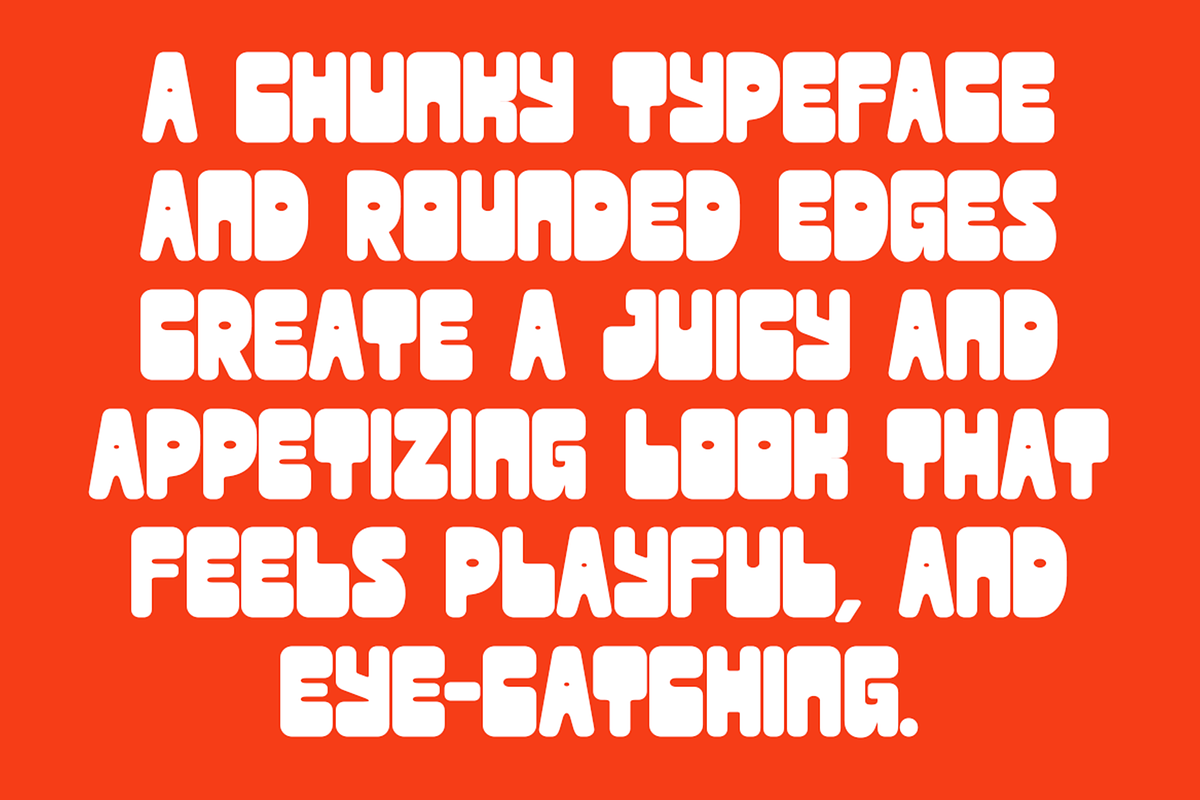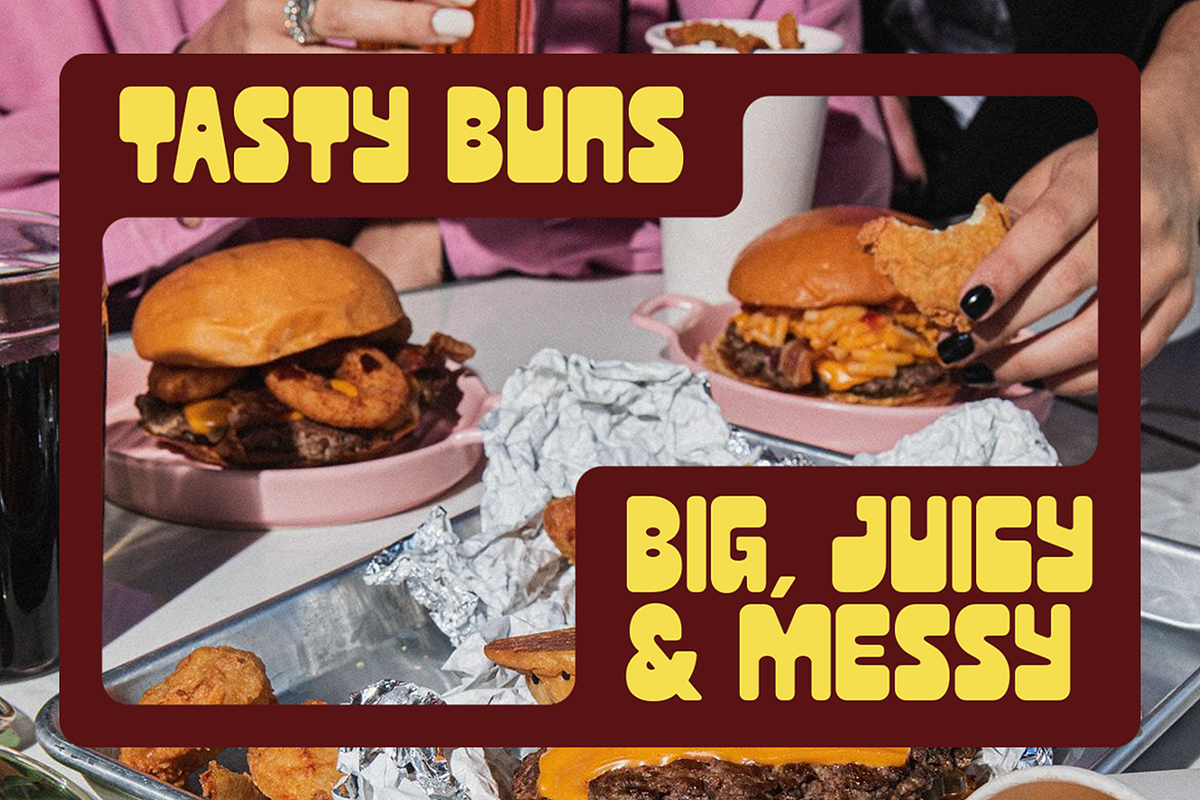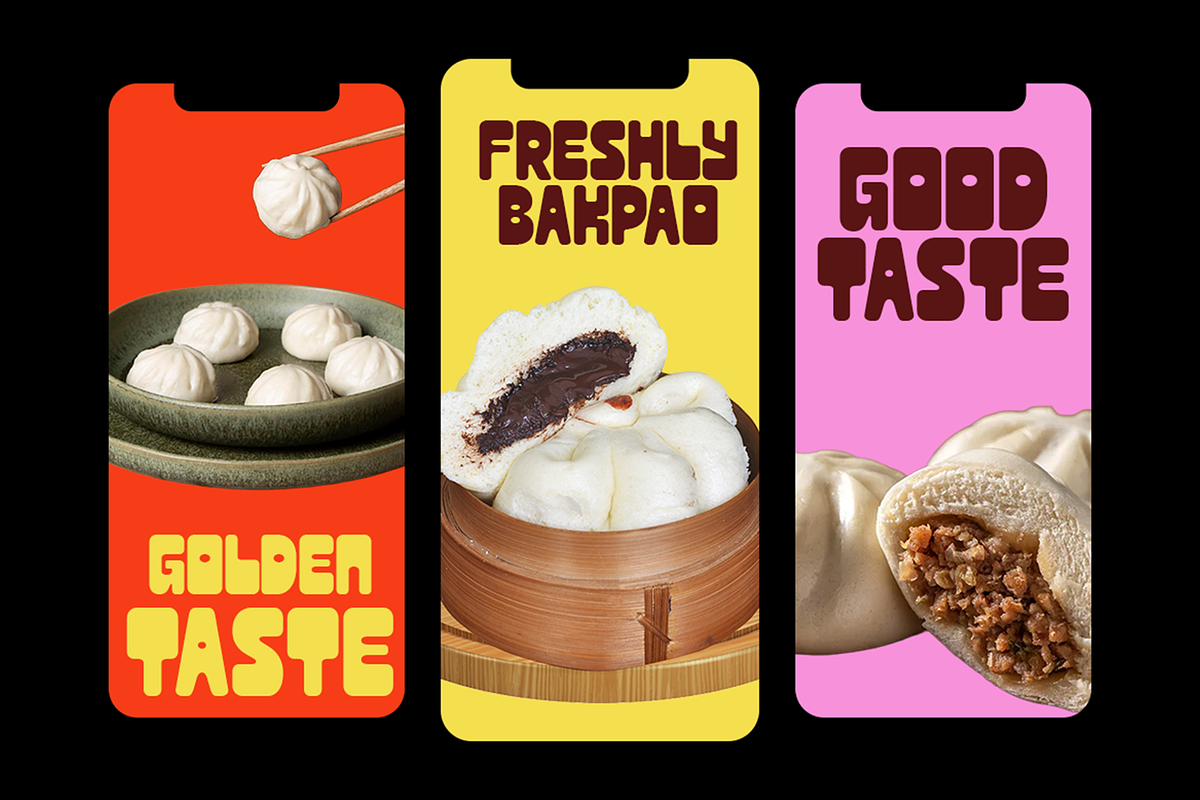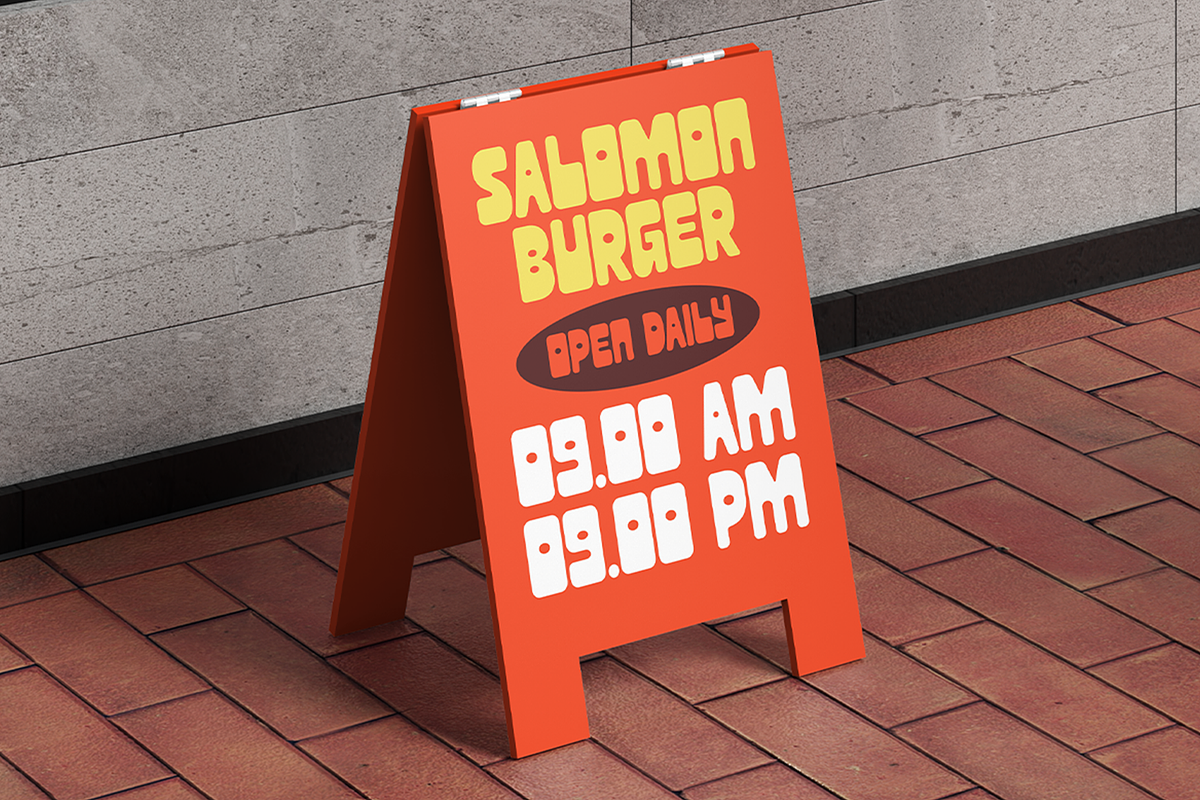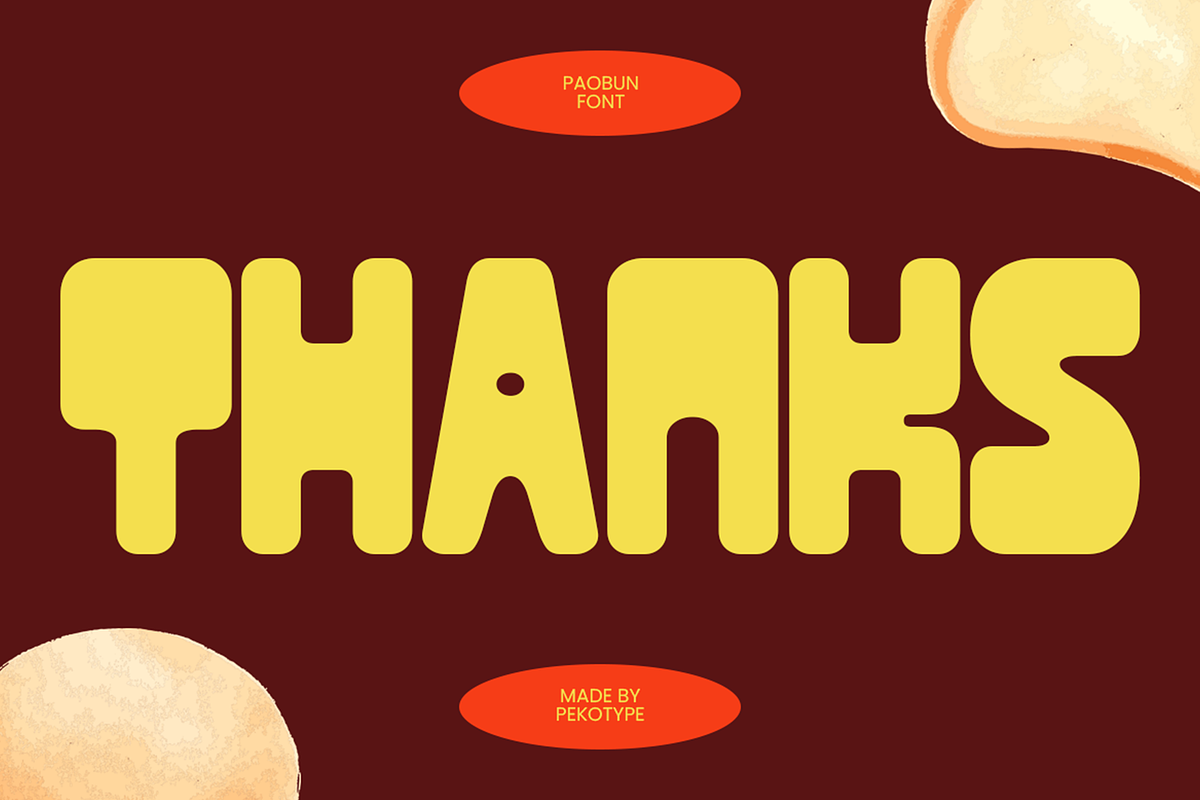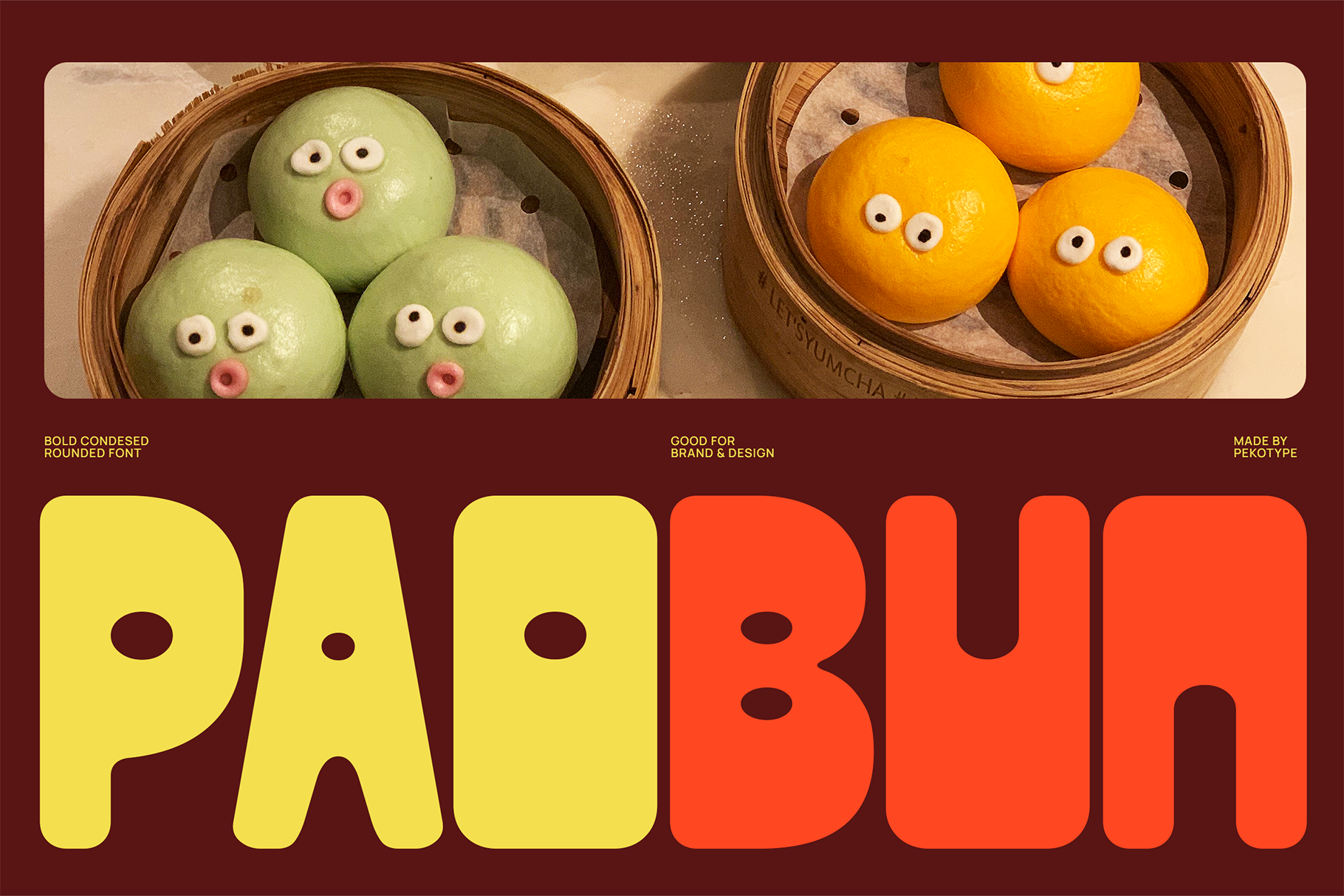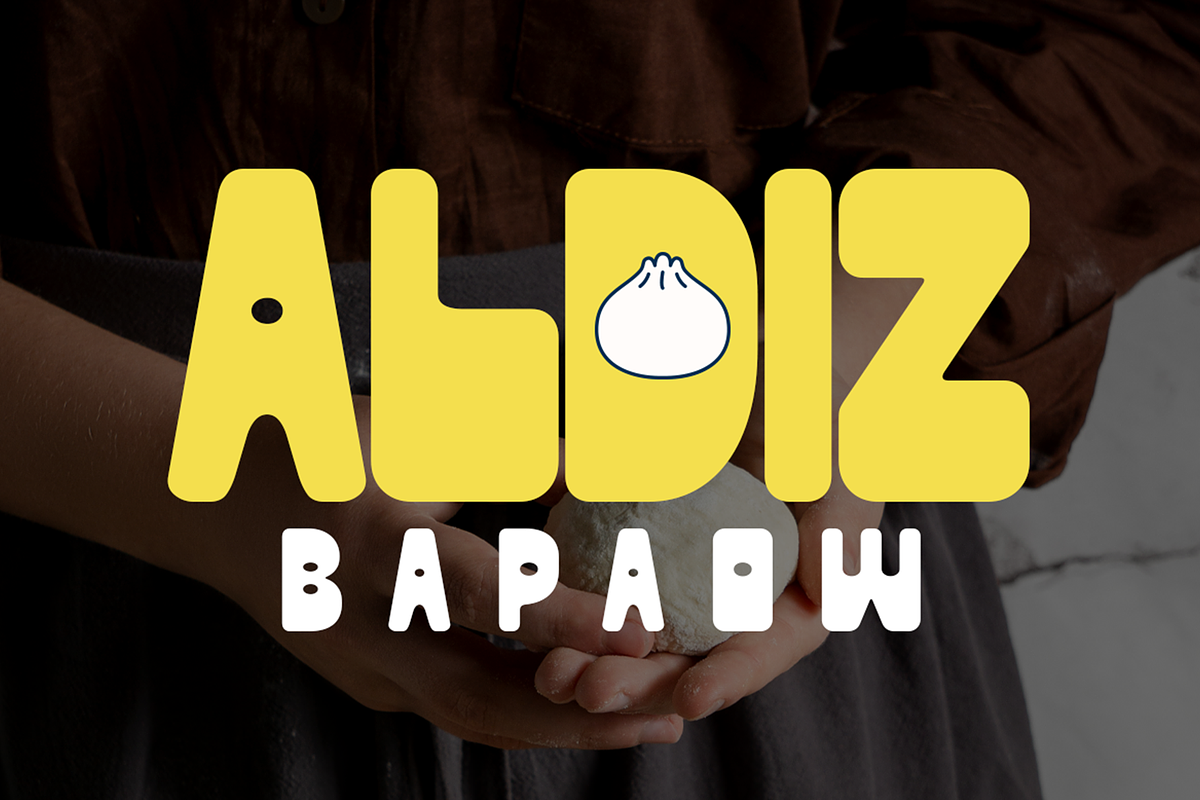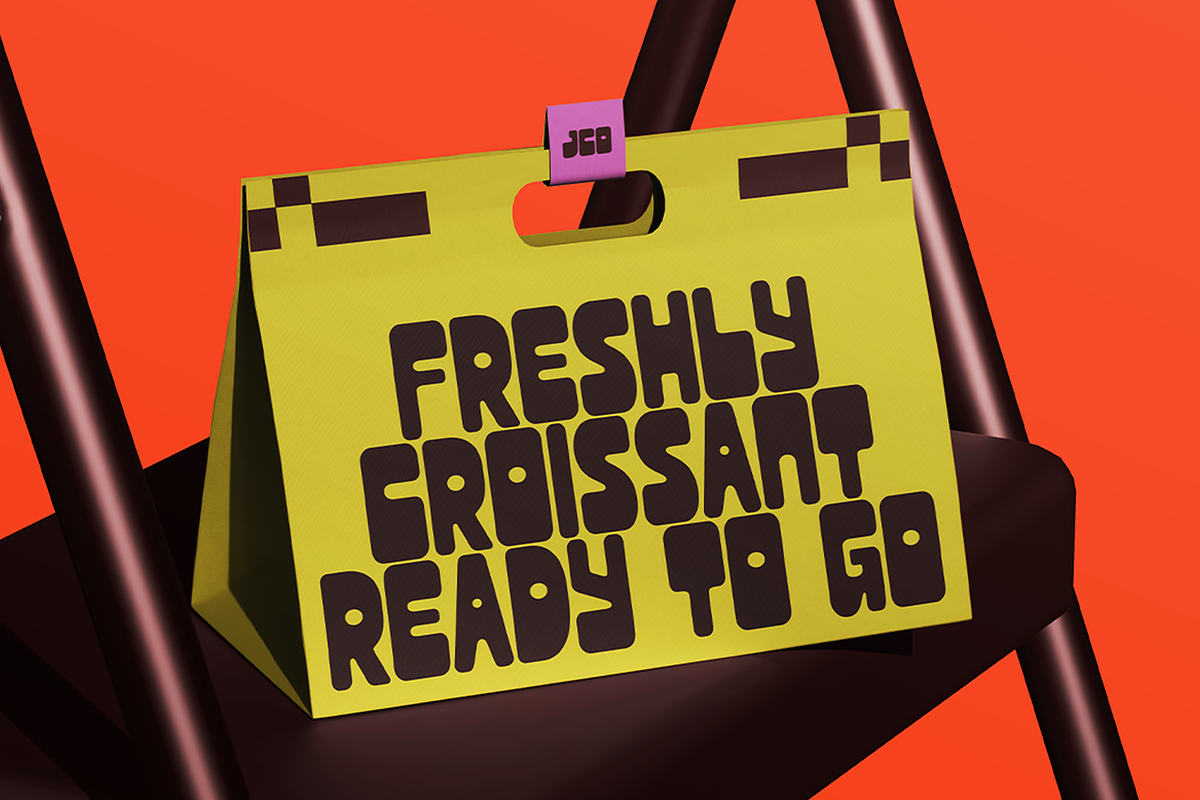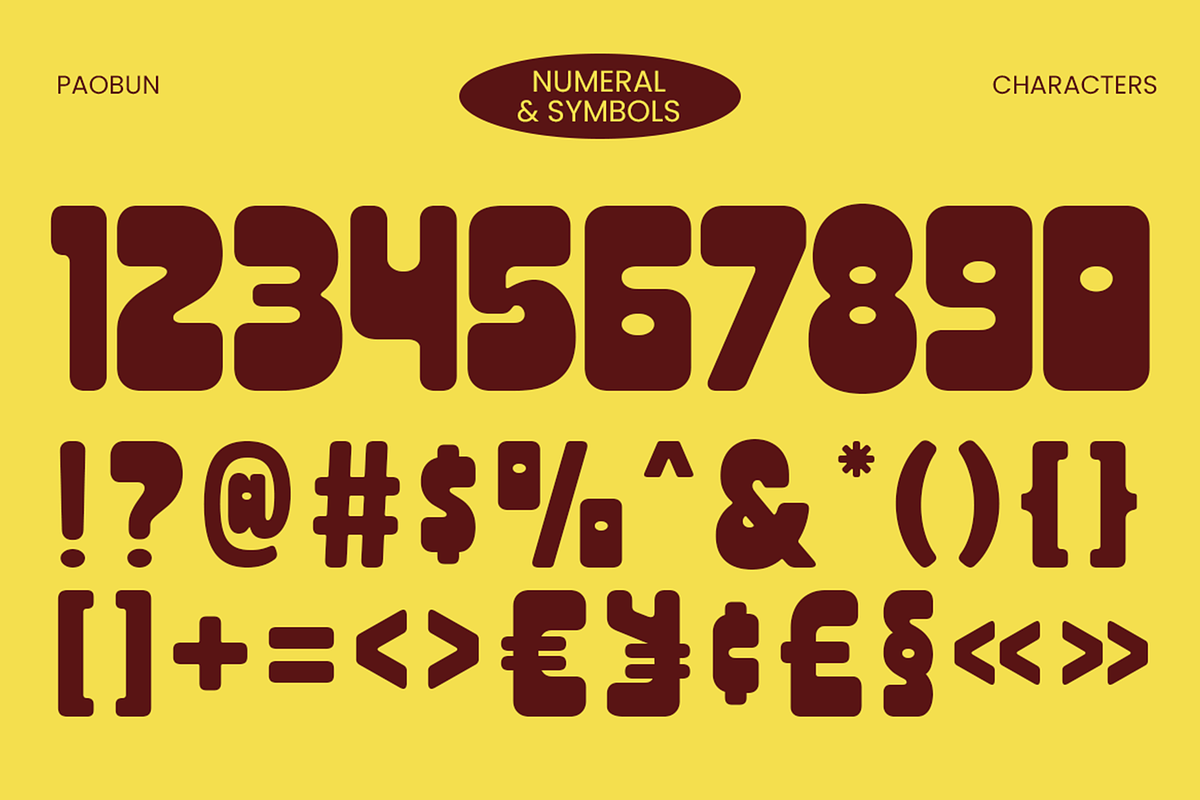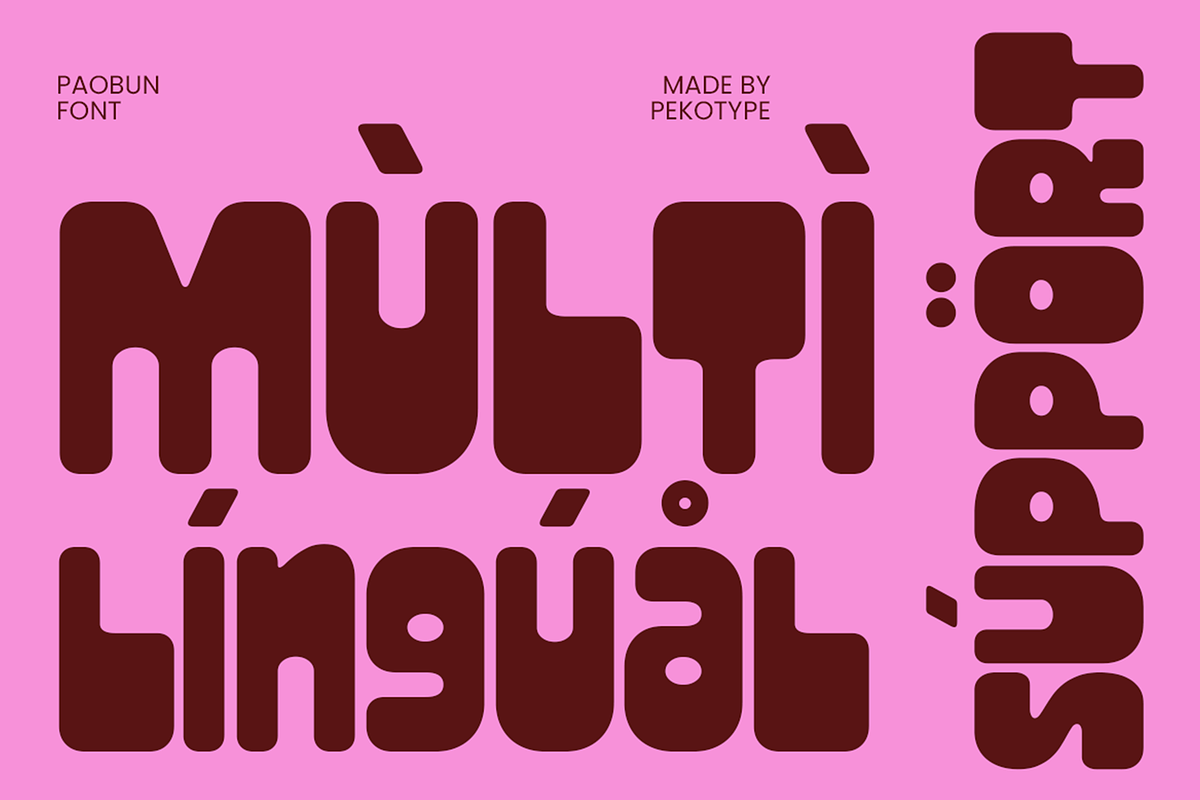
Paobun - Bold Food Branding Font
PAOBUN is a chunky, rounded display font with a fun, tasty, and super playful vibe. The soft curves and bold shapes make every word feel warm, friendly, and easy to notice. Inspired by food branding, retro packaging, and cheerful street signage, PAOBUN brings a juicy and energetic look that instantly makes designs feel more alive.
This font is perfect for restaurant branding, café menus, snack packaging, food posters, burger shops, bakery promotions, social media graphics, product labels, stickers, signage, and fun headline designs. PAOBUN works great when you want your project to feel cute, bold, nostalgic, and full of personality without being too serious.
Number, Symbol, & Punctuation